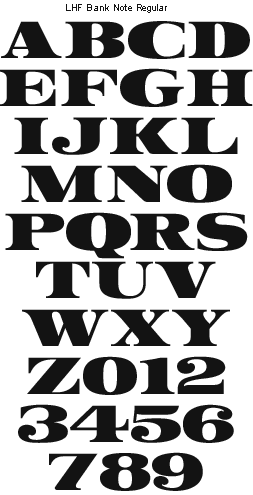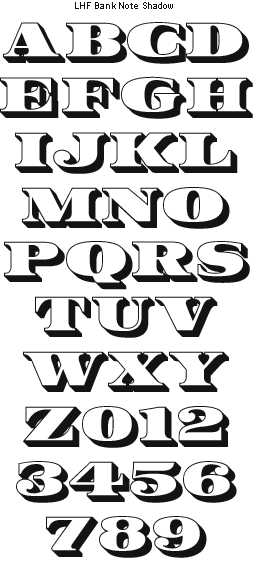
LHF Bank Note Original uses for this typeface included stock certificates and bills. Includes 2 versions. Show Me The Money For a limited time... get LHF Bank Note and LHF Old Stock together and save $8. (Must use the above button to order.)